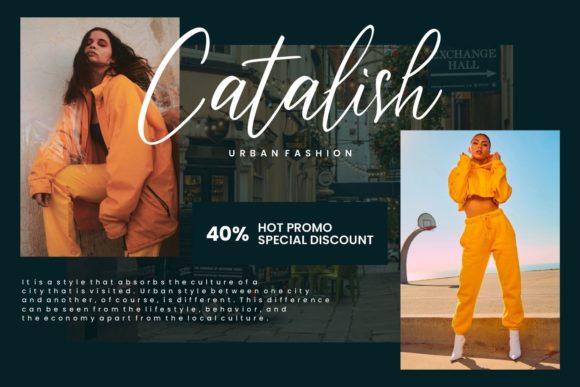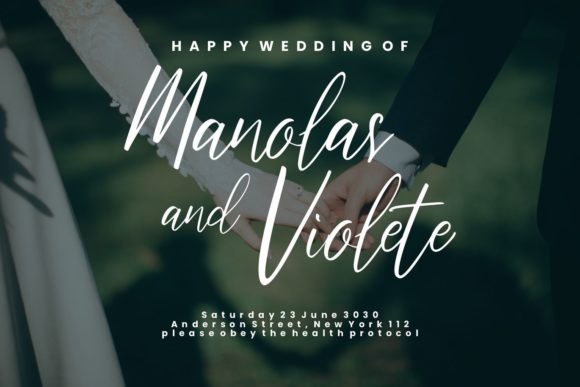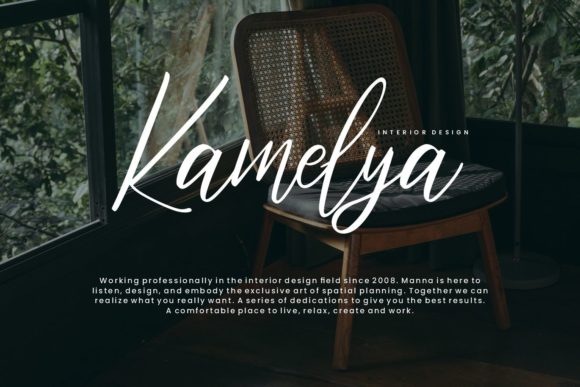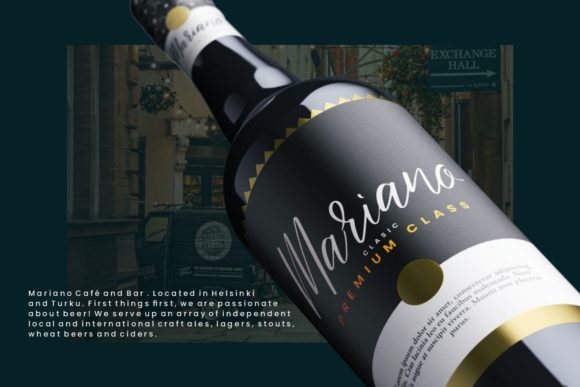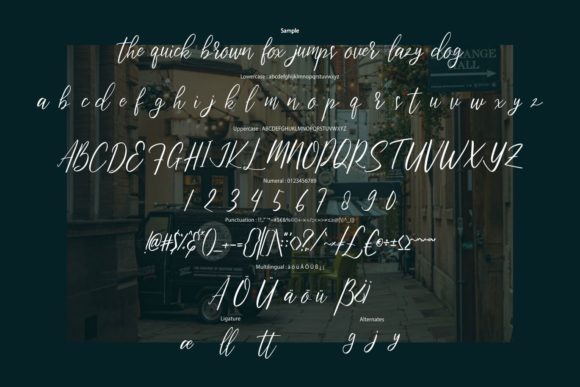
Bristtole Script Font: Elevate Your Designs with Elegance and Class
In the world of typography, a well-chosen font can make all the difference in the success of a design project. For those seeking a lovely and delicate script font that exudes elegance and class, Bristtole Script is an exceptional choice. This beautifully crafted font is specifically designed for individuals who require a refreshing and stunning look for their designs.
What is Bristtole Script Font?
Bristtole Script is a meticulously designed script font that embodies sophistication and refinement. Its delicate strokes and elegant letterforms make it an ideal choice for a wide range of design applications, from wedding invitations and branding materials to packaging and digital media.
Key Features of Bristtole Script Font
- Elegant and Delicate Design: Bristtole Script boasts a beautiful, hand-crafted design that adds a touch of luxury to any project.
- Highly Readable: Despite its delicate nature, Bristtole Script is highly readable, making it suitable for both headings and body text.
- Versatile: This font can be used in various design contexts, including digital and print materials.
- Unique and Distinctive: Bristtole Script’s unique character set and stylish alternates ensure that your designs stand out from the crowd.
Who Can Benefit from Bristtole Script Font?
Bristtole Script is an excellent choice for a variety of designers and crafters, including:
- Graphic Designers: Those working on branding, advertising, and marketing materials will appreciate the font’s elegance and versatility.
- Wedding and Event Planners: Bristtole Script’s romantic and delicate design makes it perfect for wedding invitations, programs, and other event materials.
- Stationery and Journal Designers: This font is well-suited for creating beautiful stationery, journals, and notebooks.
- Digital Product Creators: Bristtole Script can add a touch of sophistication to digital products, such as e-books, courses, and website designs.
Tips for Using Bristtole Script Font Effectively
To get the most out of Bristtole Script, consider the following tips:
- Pair with Neutral Fonts: Combine Bristtole Script with neutral fonts, such as sans-serif or serif fonts, to create a balanced and harmonious design.
- Use for Headings and Titles: Take advantage of Bristtole Script’s elegant design by using it for headings, titles, and other display text.
- Experiment with Colors and Textures: Enhance the font’s beauty by experimenting with different colors, textures, and backgrounds.
Bristtole Script Font is a stunning and elegant script font that can elevate your designs to new heights. Its delicate design, high readability, and versatility make it an excellent choice for a wide range of applications. Whether you’re a graphic designer, wedding planner, or digital product creator, Bristtole Script is sure to become a valuable addition to your font collection.